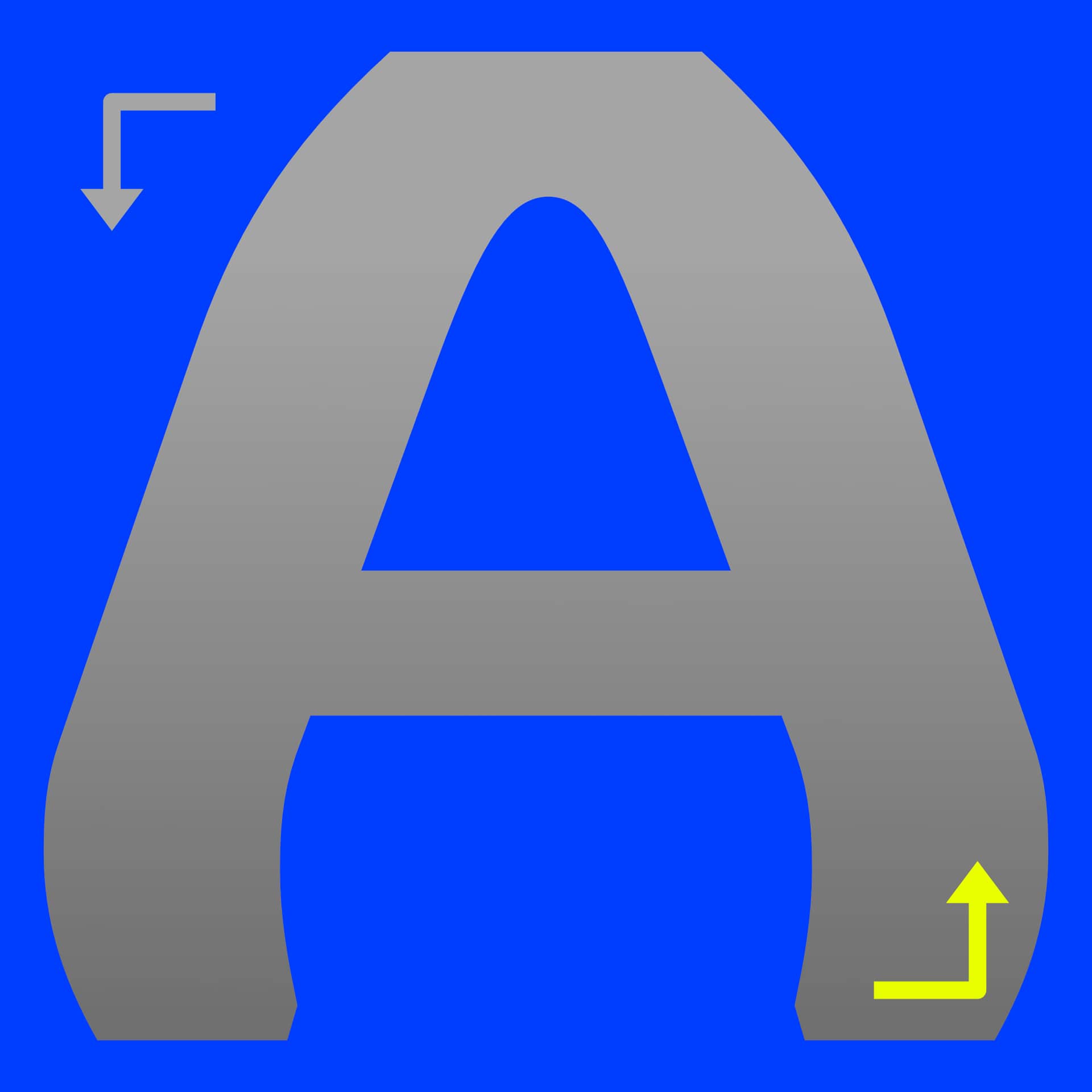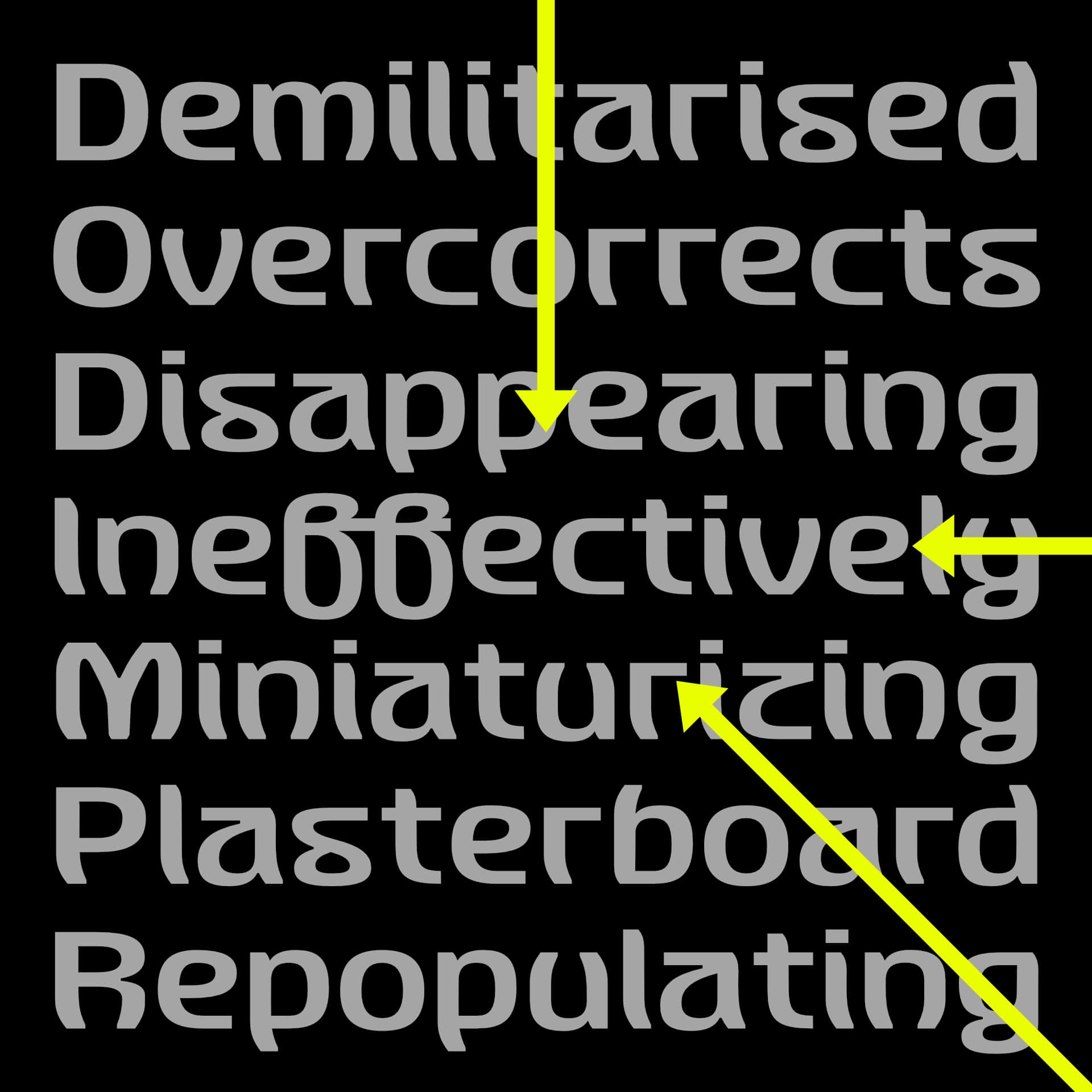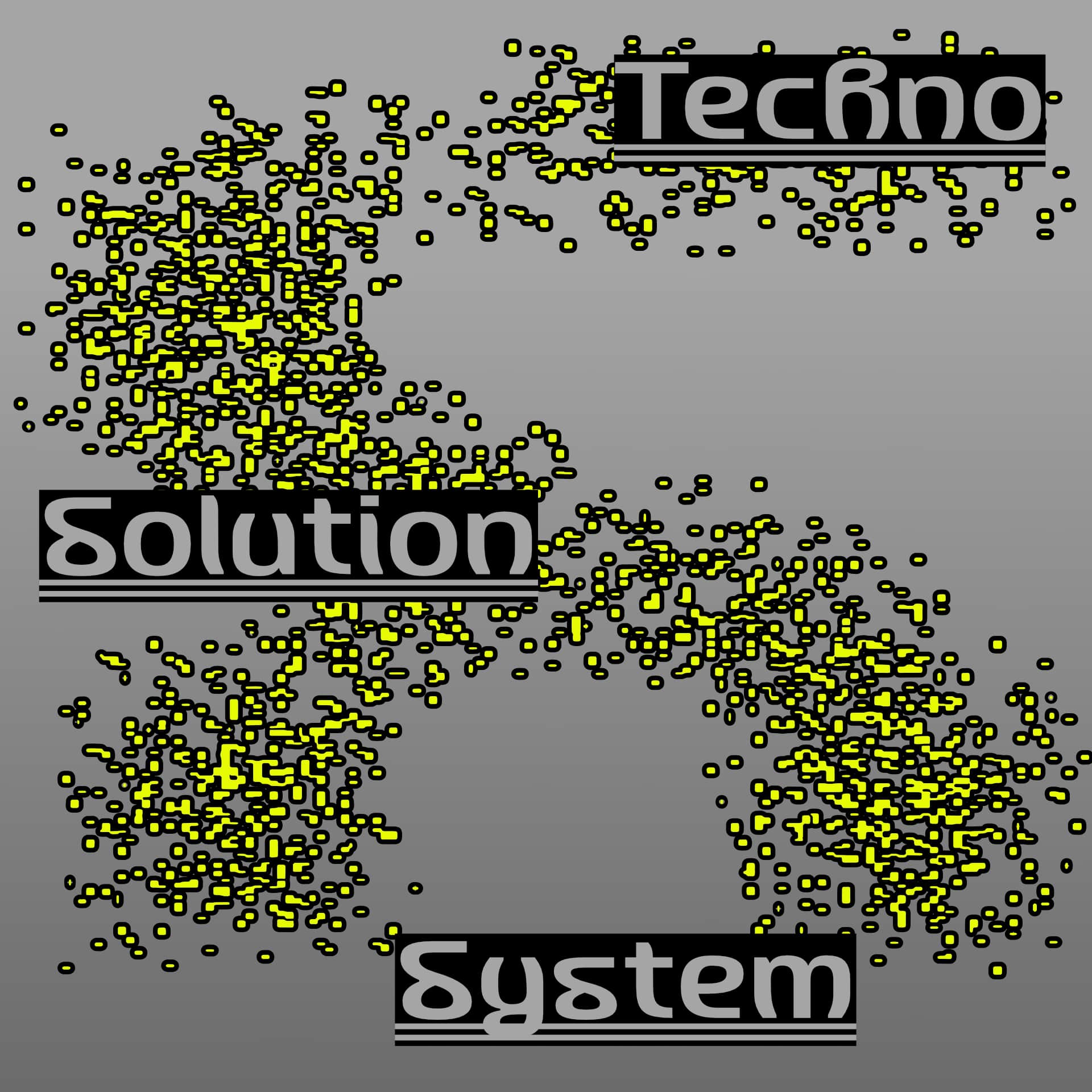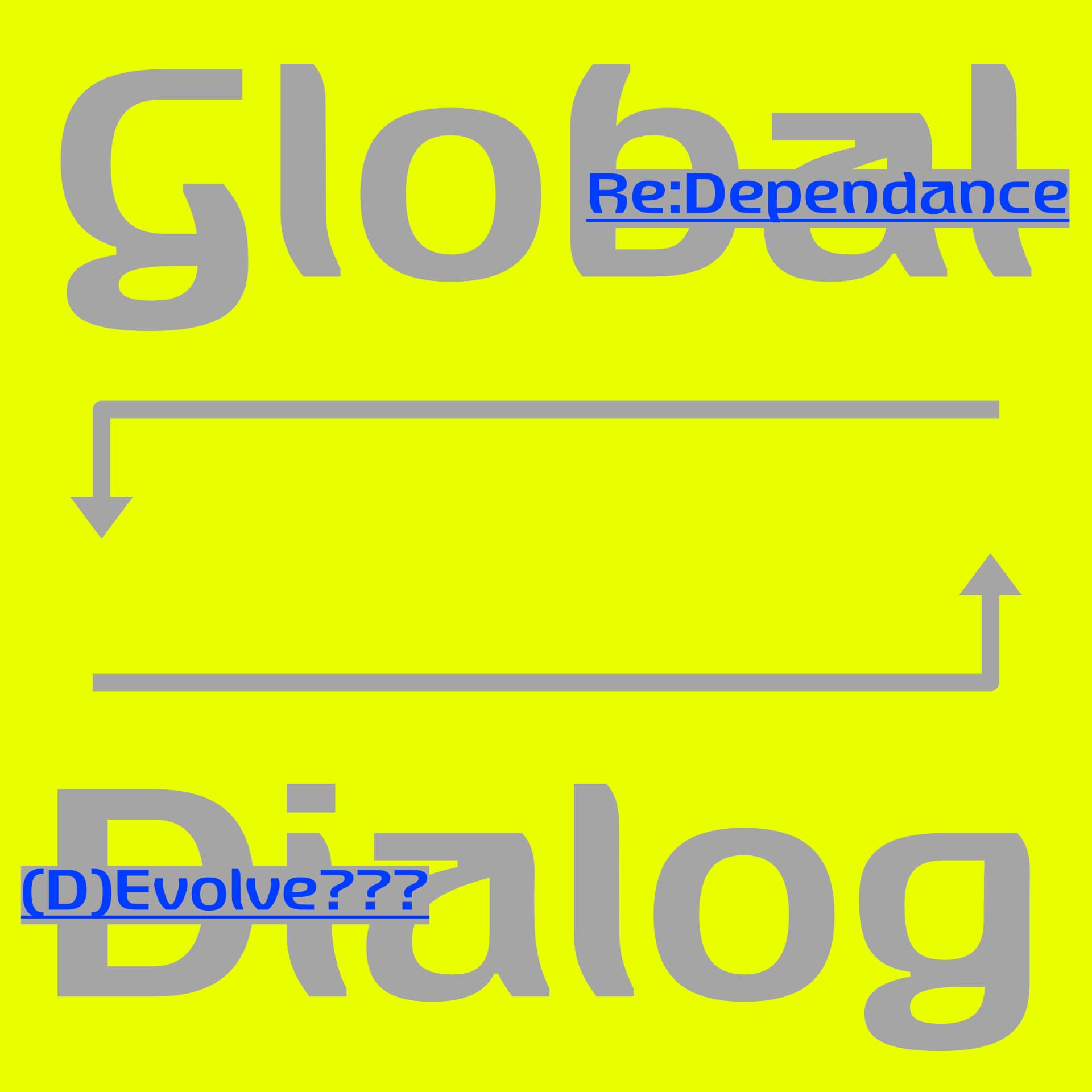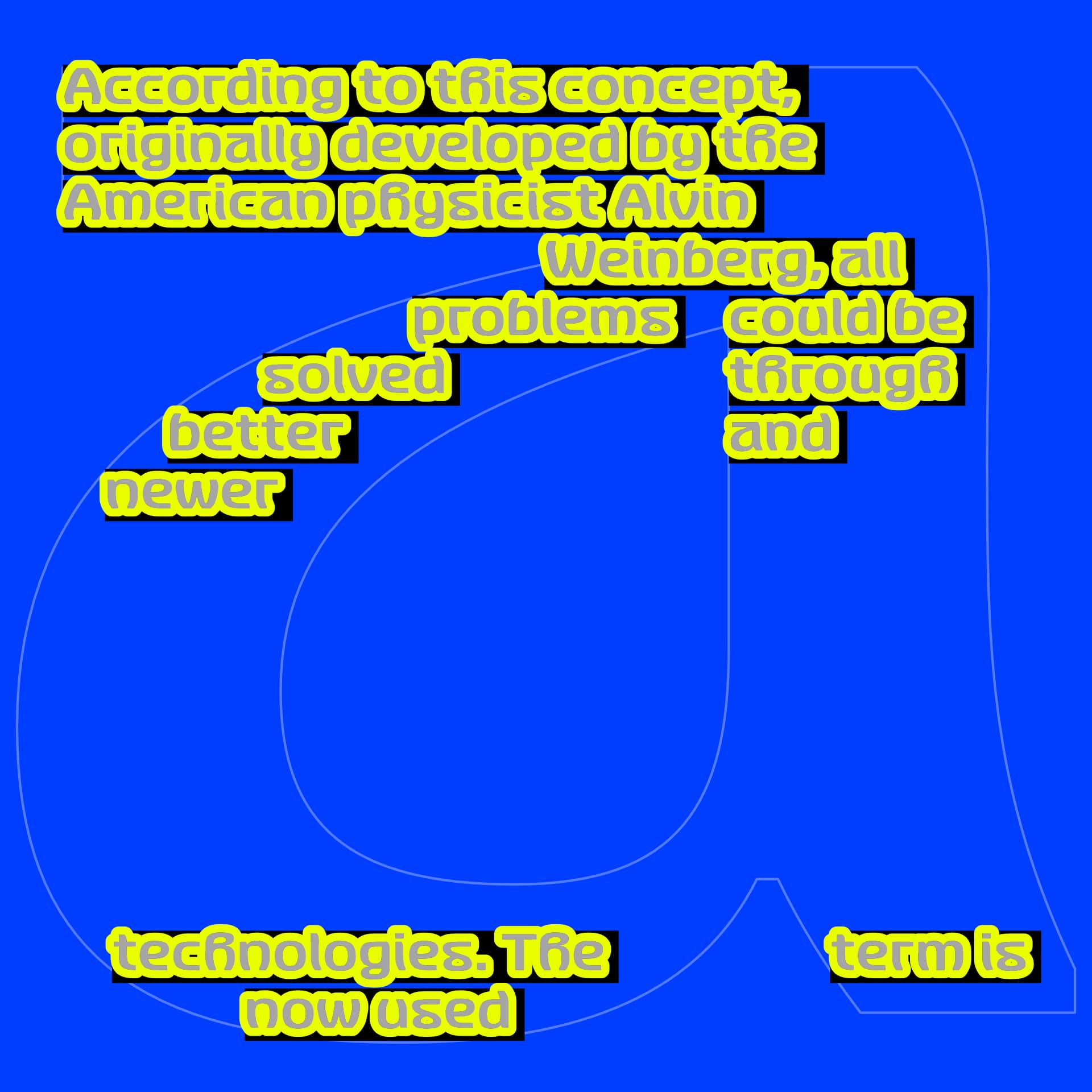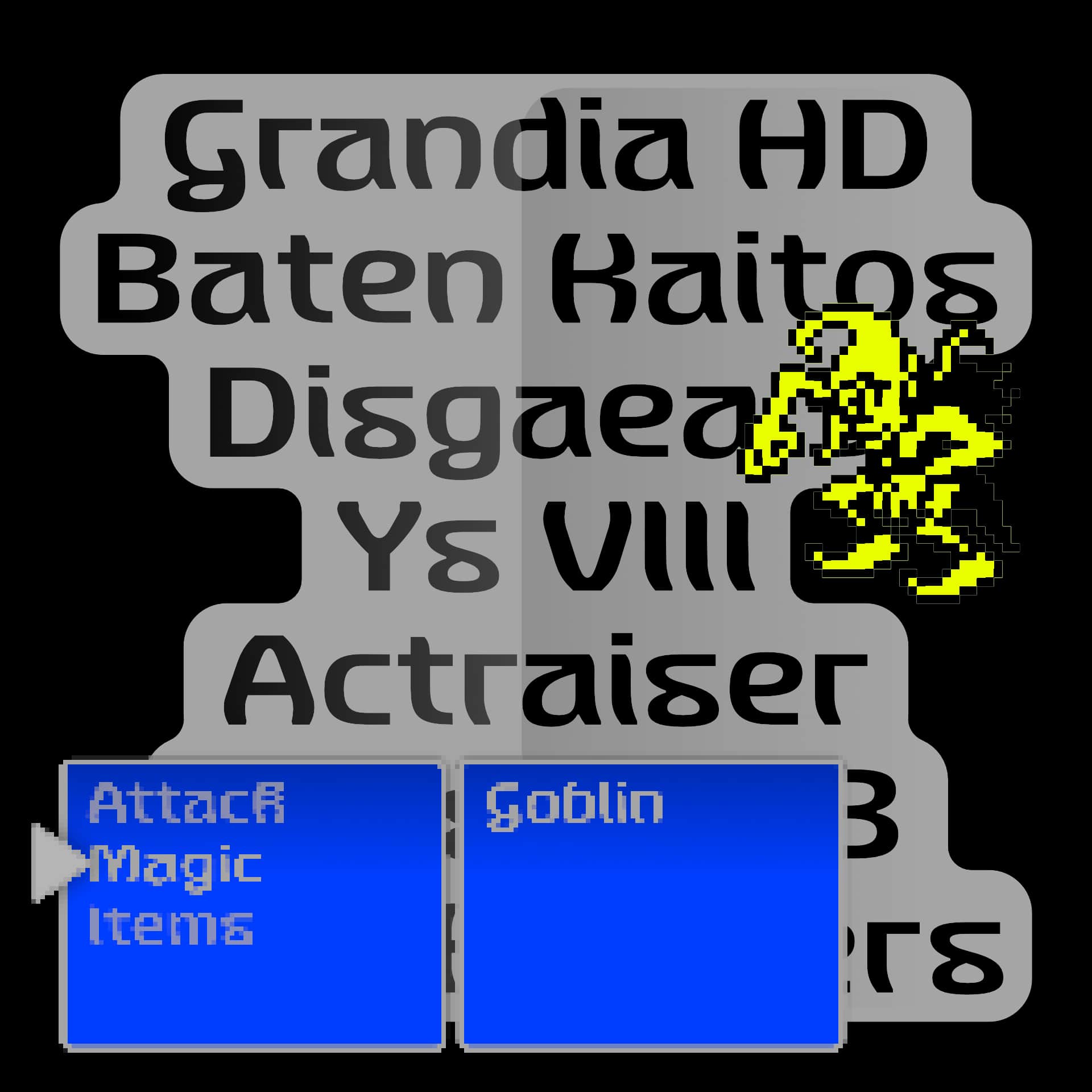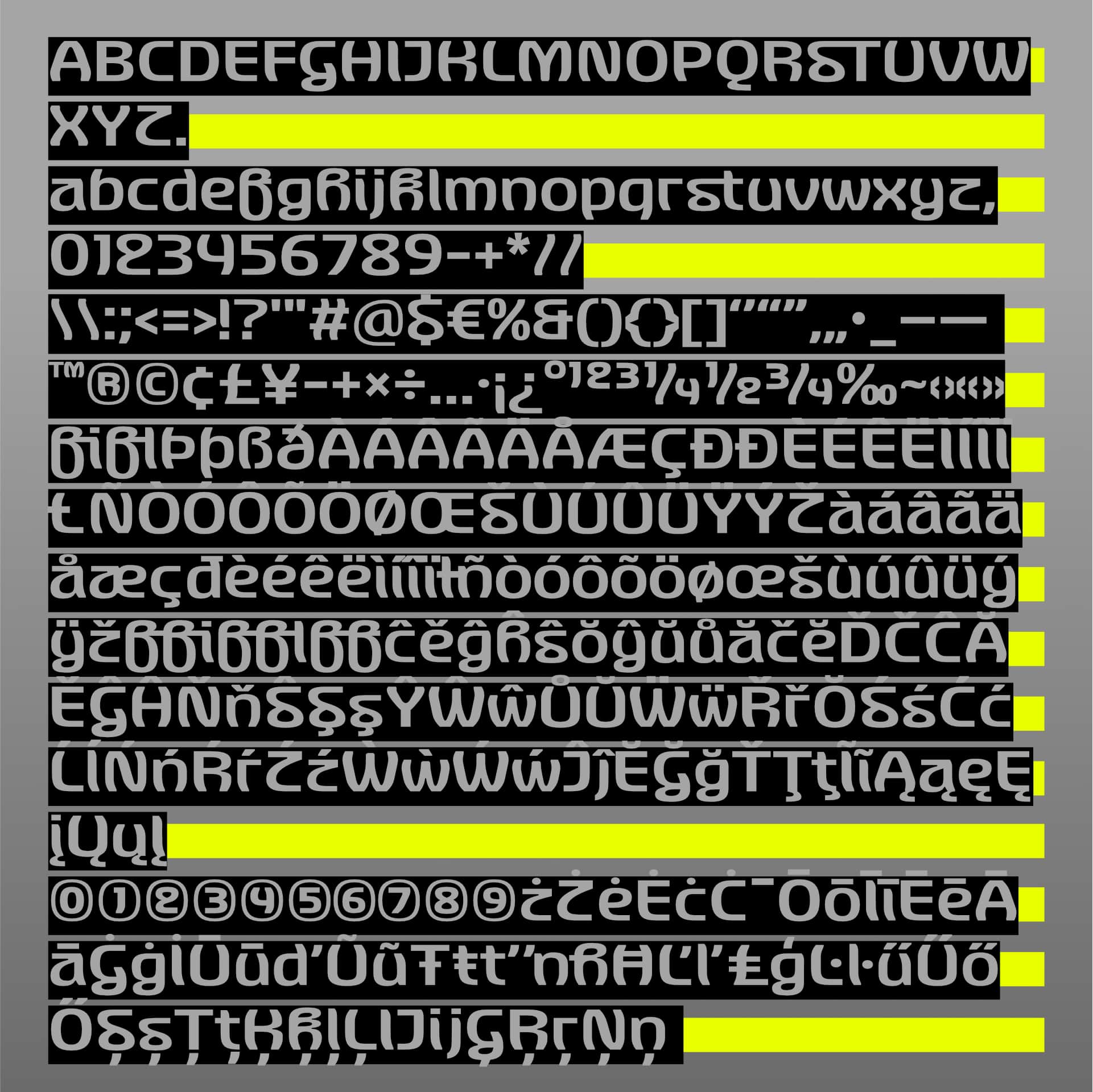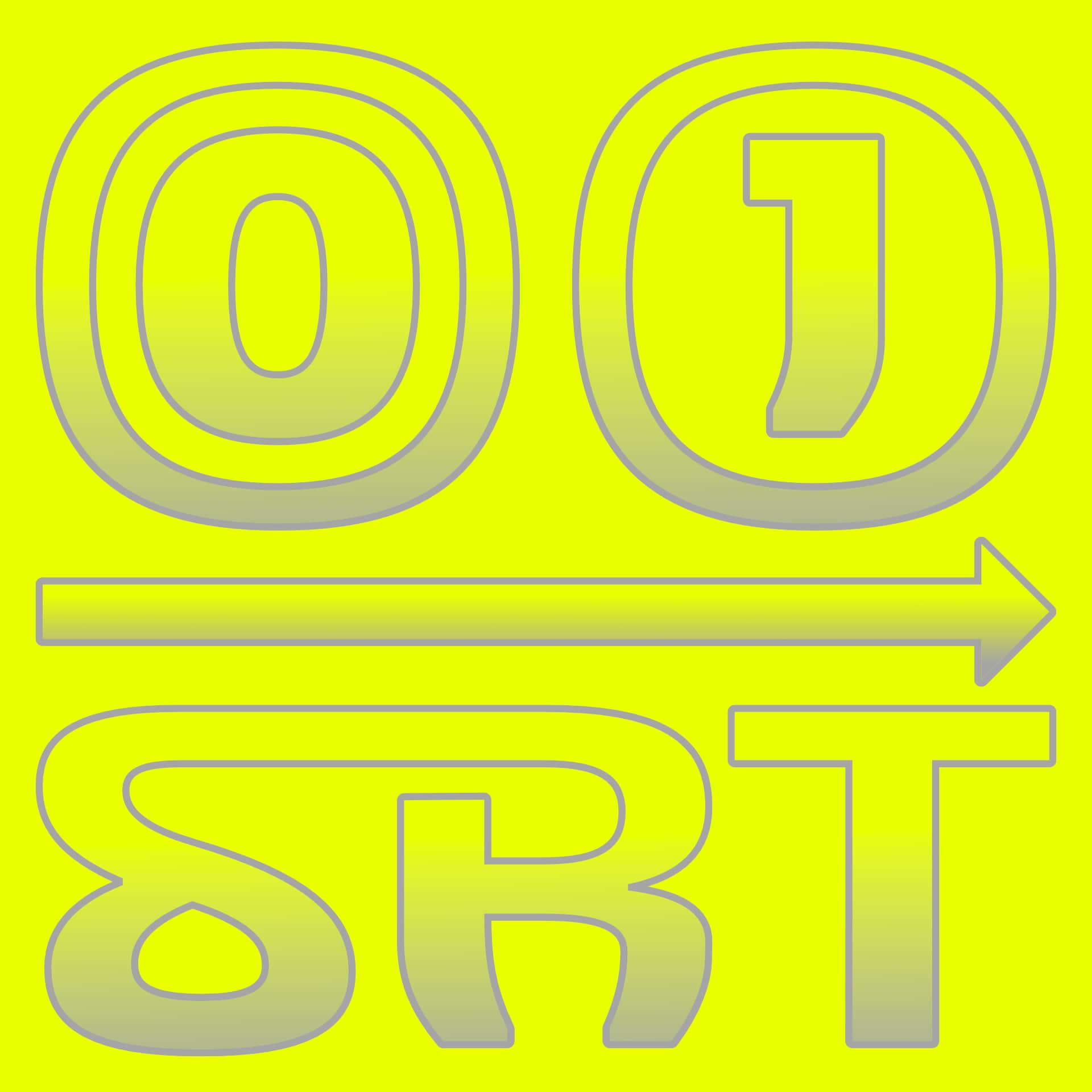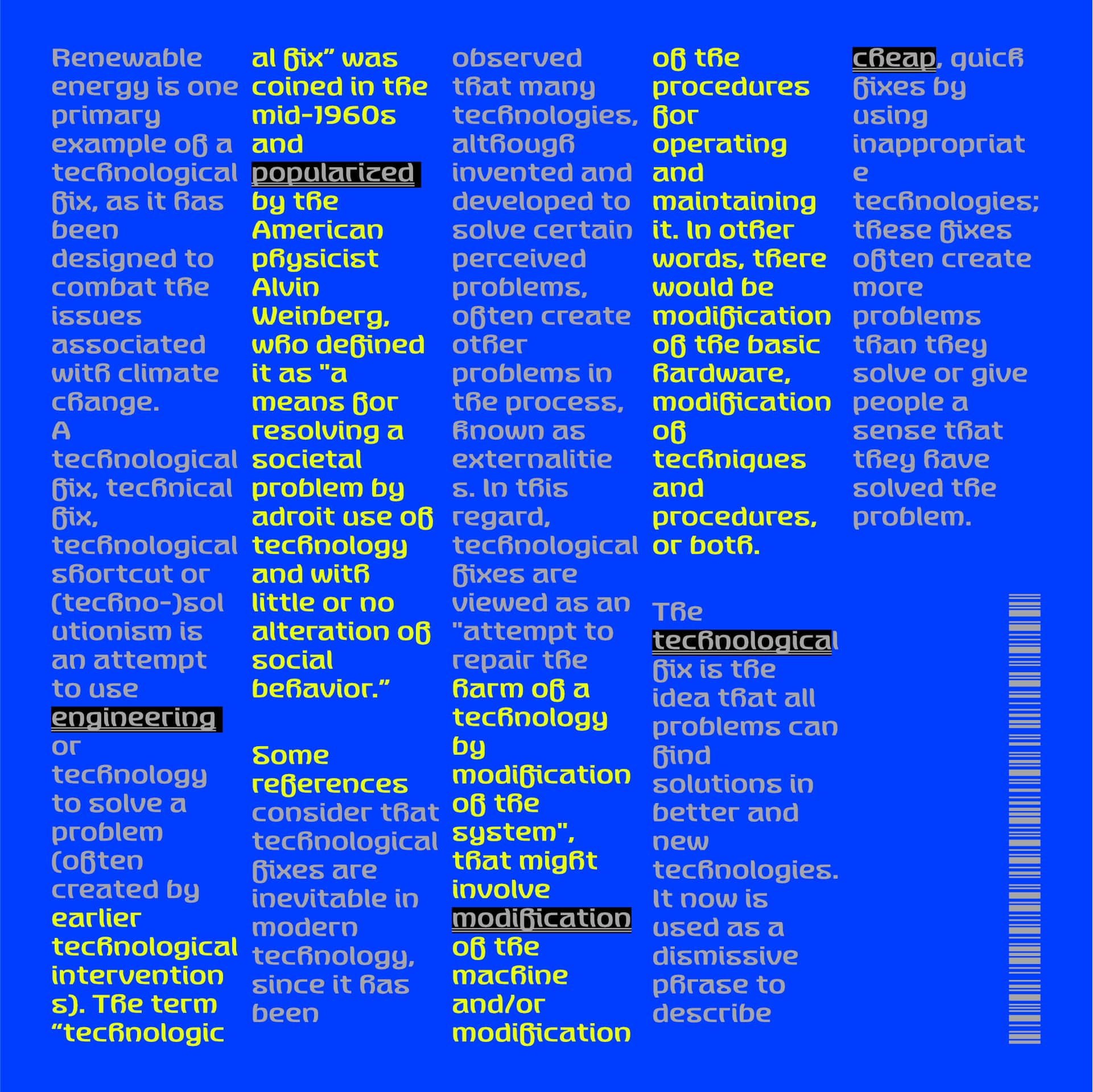
Structur Typeface
Structur is a typeface that blends uncial and cyberpunk influences. It fits into a hyper-technological world, featuring technical forms and a strong structure. The letters combine straight lines with fluid curves, creating a contrast that gives rise to a new hybrid style. This typeface creates a mechanical and industrial aesthetic, while still featuring rounded forms.
Beyond its brutalist roots, Structur is engineered for high-impact display use. Whether you are designing futuristic interface HUDs, experimental posters, or underground music visual identities, its unique DNA ensures your message hits with precision. The broad language support and extensive glyph set make it a versatile tool for global branding projects that require a "tech-noir" or neo-medieval edge.
Designed for those who want to bridge the gap between ancient manuscript aesthetics and the digital frontier. Perfect for logos, apparel design, and editorial layouts that demand a strong, authoritative presence.